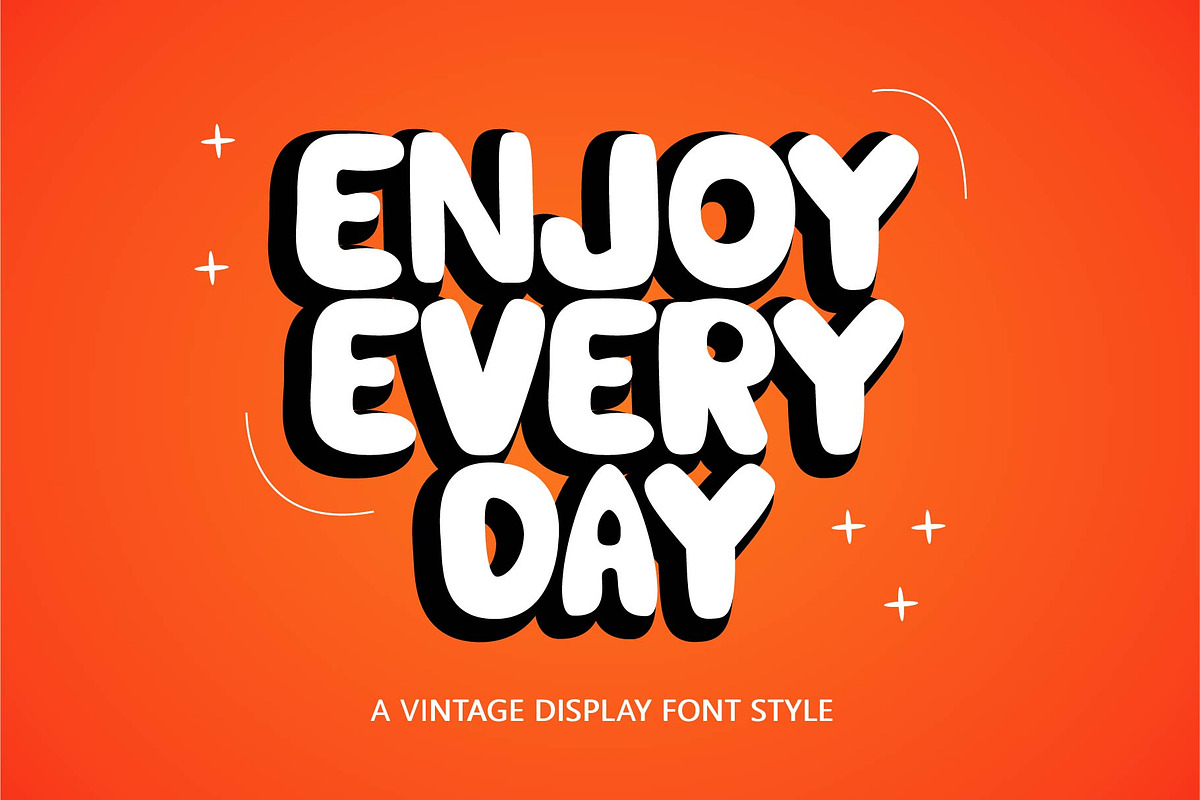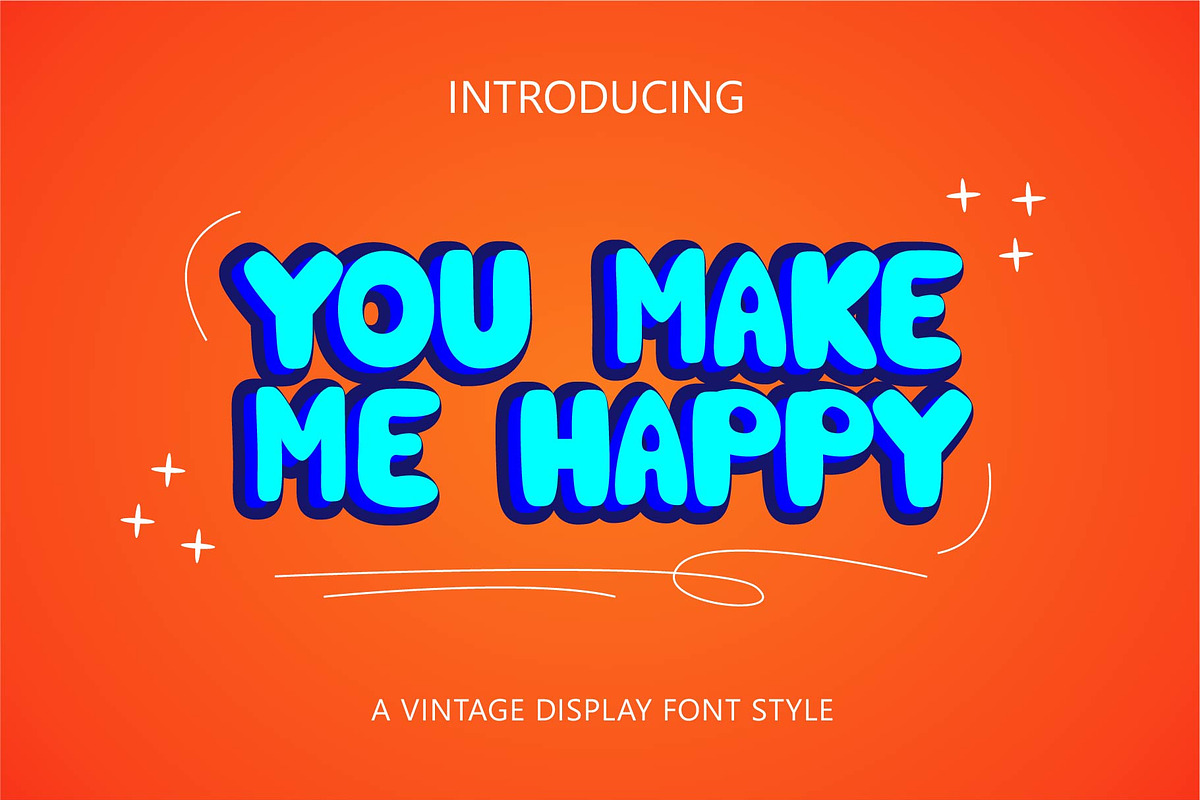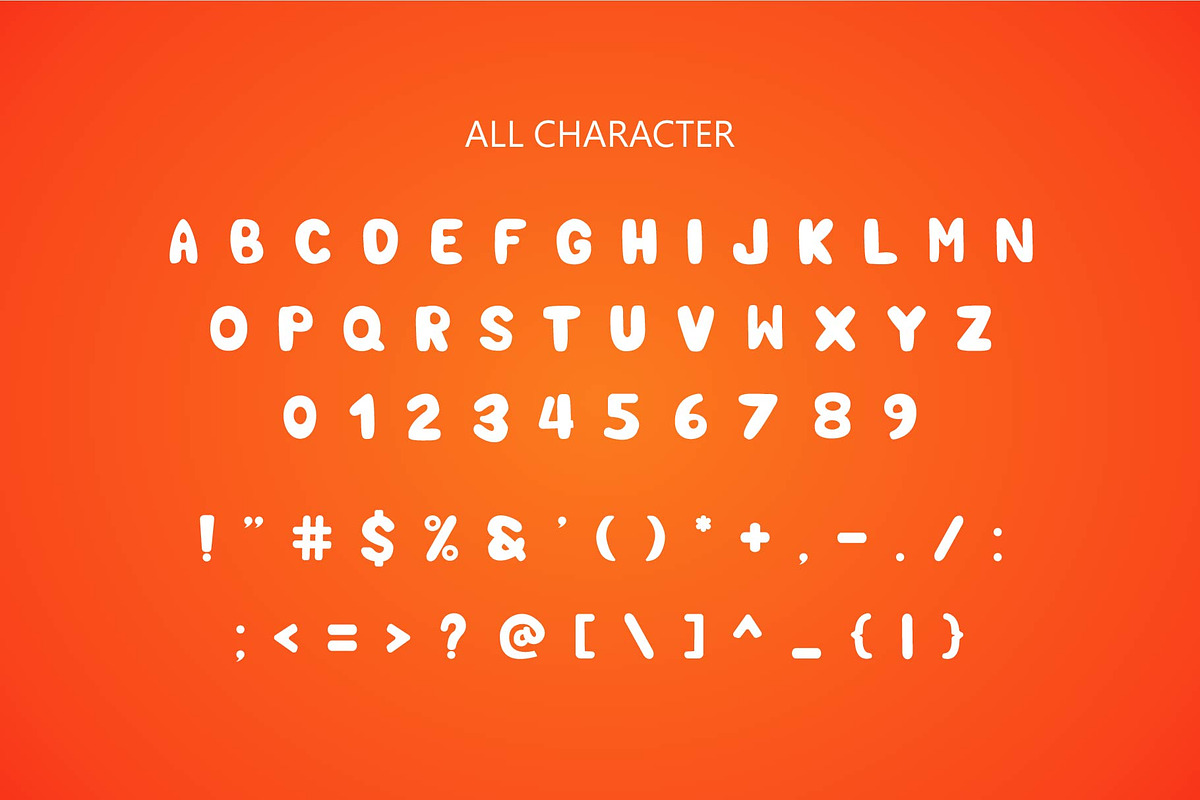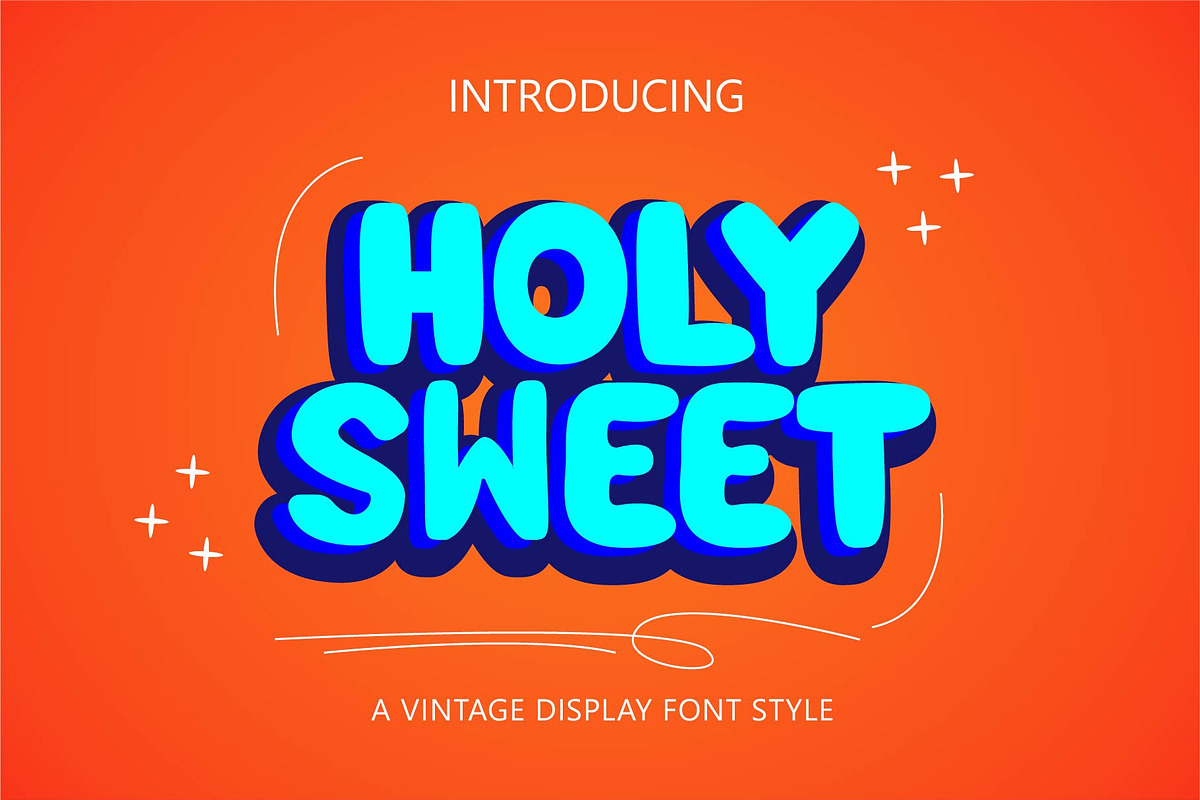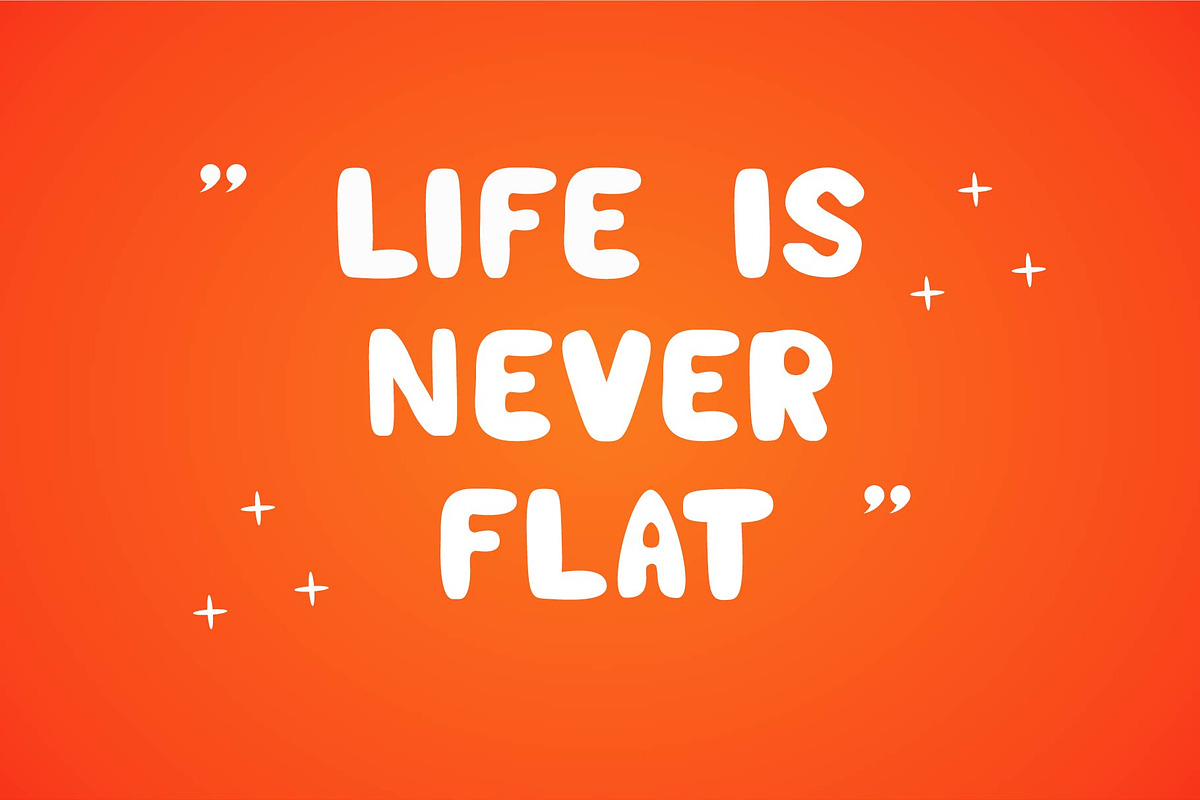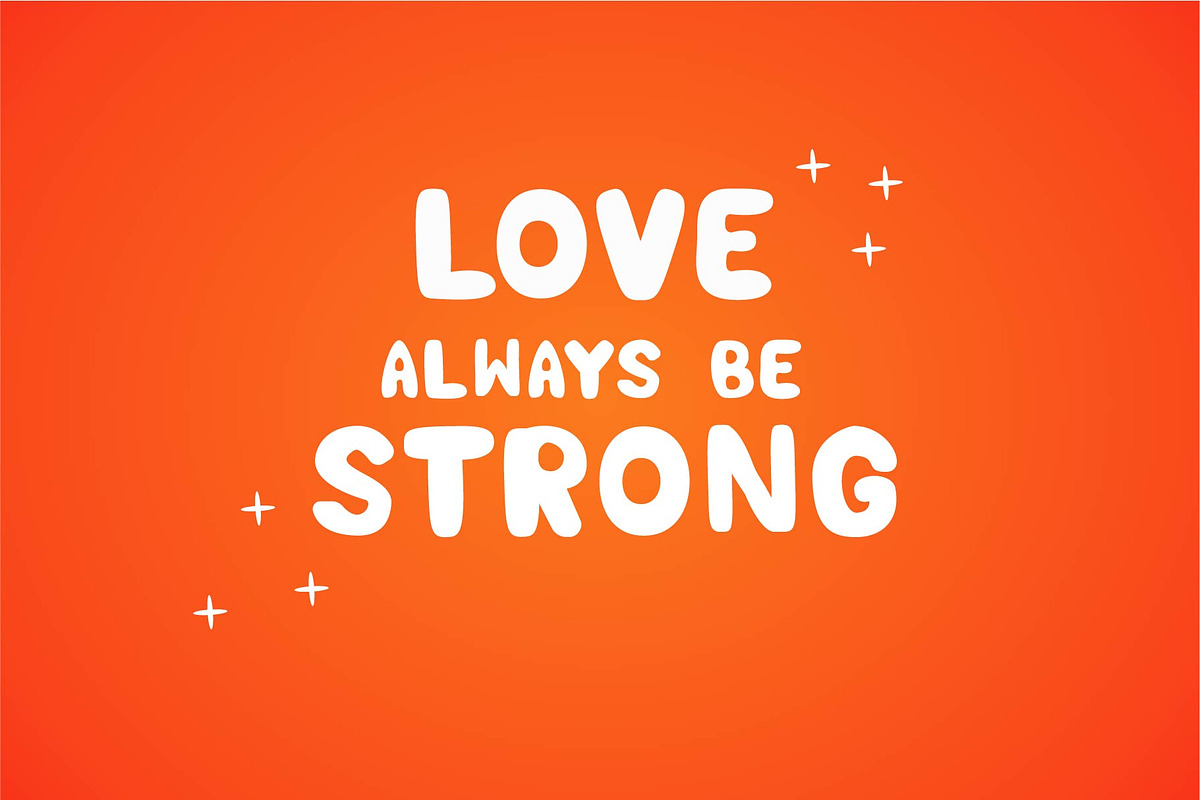
Holy Sweet - Groovy Font
Holy S weet is a Groovy Display Font that contains uppercase, symbols. With PUA encoded which means you can access all of the glyphs and swashes with ease! This font is perfect for creating t-shirts, stickers, cover books, children’s books, social media posts, invitations, and much more!